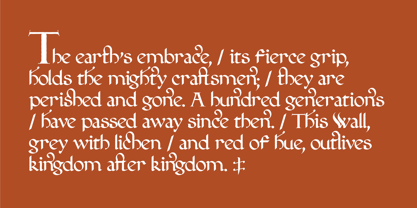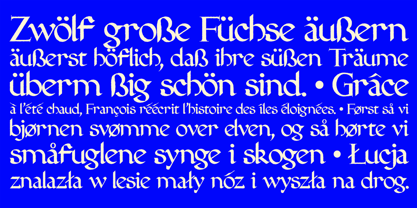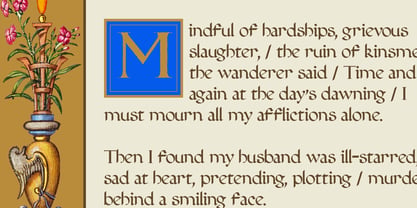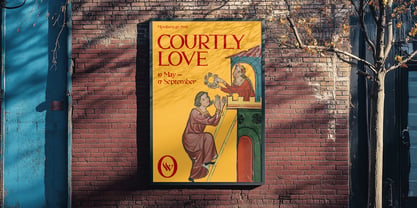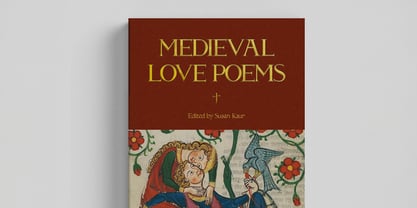
Exeter Minuscule
The Exeter Minuscule Font Family was designed by Olivia Mcneilis and published by Eidosity. Exeter Minuscule contains 3 styles and family package options. More about this family
Inspired by the Exeter Book, or Codex Exoniensis, the Exeter Minuscule font pays homage to the meticulously handwritten riddles, heroic poems, and elegiac verses crafted by Benedictine monks in the 10th century. This font beautifully captures the fluid transition between Late Carolingian and Early Gothic Minuscule styles. Exeter Minuscule showcases numerous traditional ligatures and alternative characters that reflect the historical period, drawing direct references from the Exeter Book. Ideal for editorial projects, branding, and any design requiring a touch of historical elegance, this font family combines authenticity with versatility, making it a perfect choice for both print and digital applications.